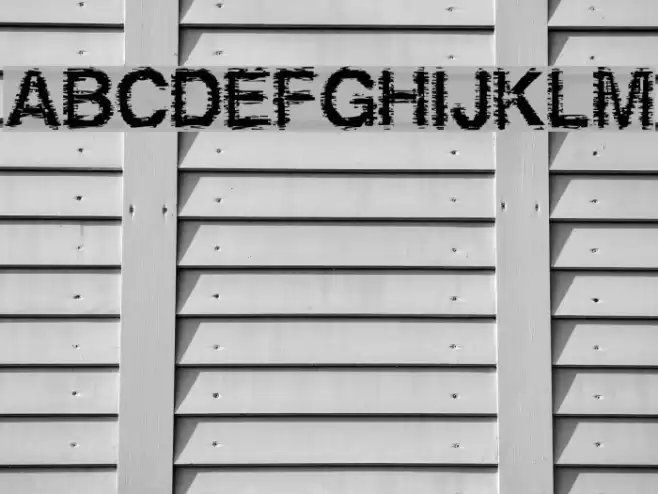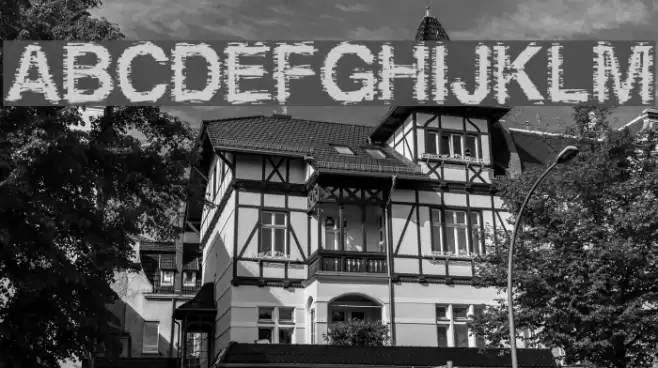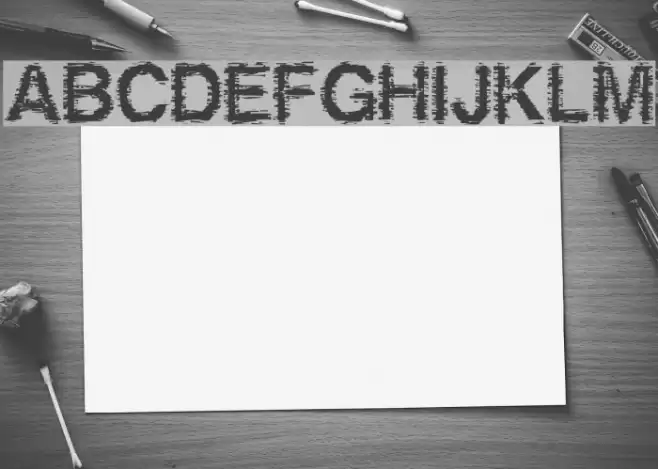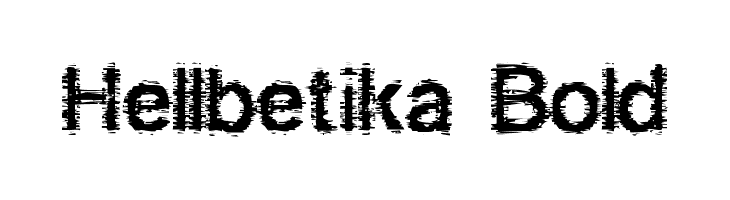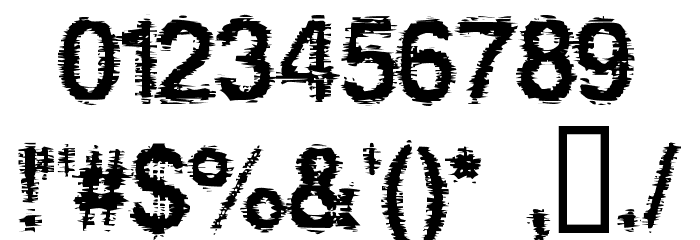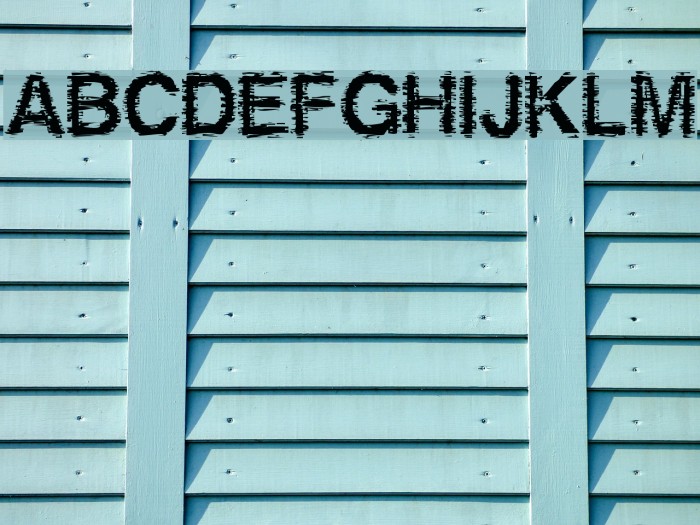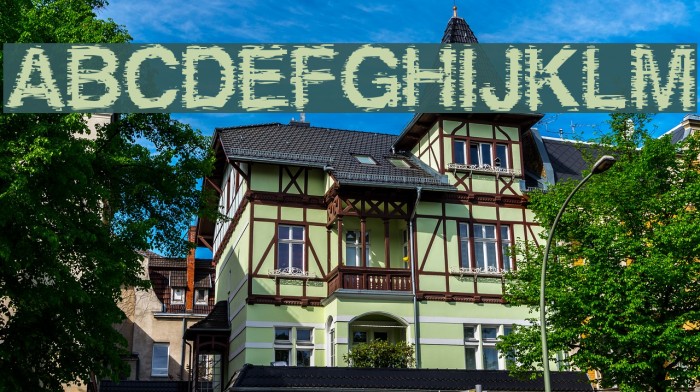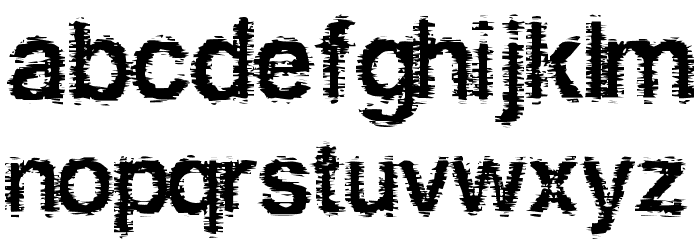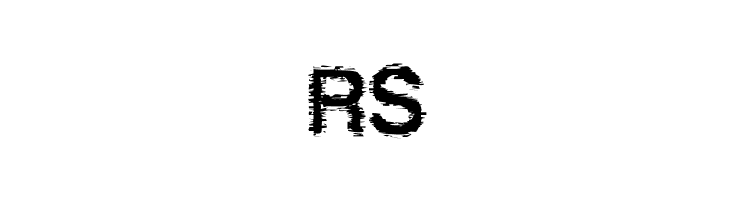
Hellbetika Bold Font
Hellbetika Bold Description
This font features a bold and distressed style, characterized by rough, uneven edges that give it a grunge or worn appearance. The uppercase and lowercase letters maintain a consistent height, while the numbers and special characters follow the same rugged aesthetic. The texture adds a dynamic and edgy feel, making it suitable for designs that require a bold statement. Its unique style can add a touch of rebellion or vintage flair to any project, making it stand out in both digital and print media.
A bold, distressed font with a grunge aesthetic and rough edges from Uncategorized fonts.
- Proposed Projects: Ideal for album covers, posters, branding for edgy or alternative brands, and any design needing a bold, vintage touch.
- Overall Style: Grunge, Vintage